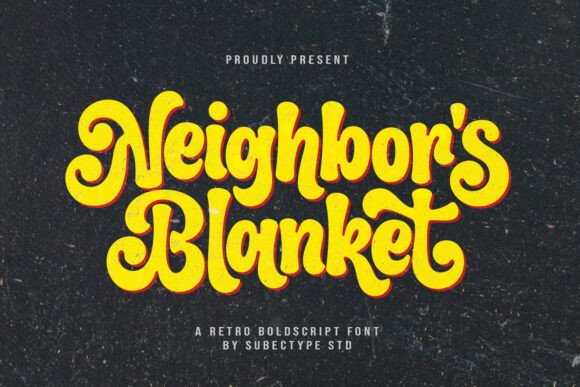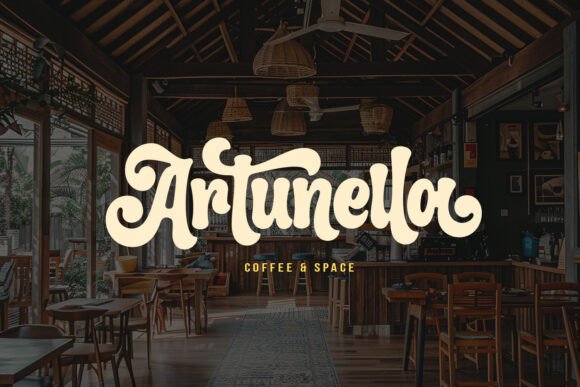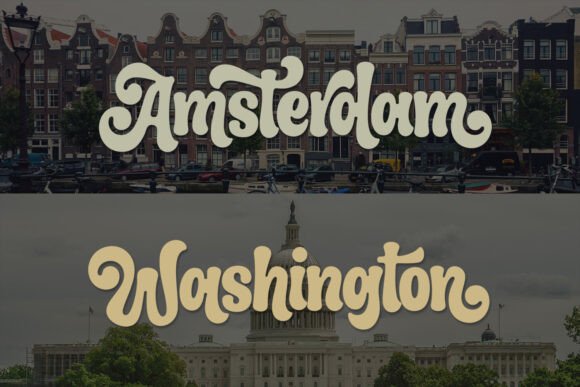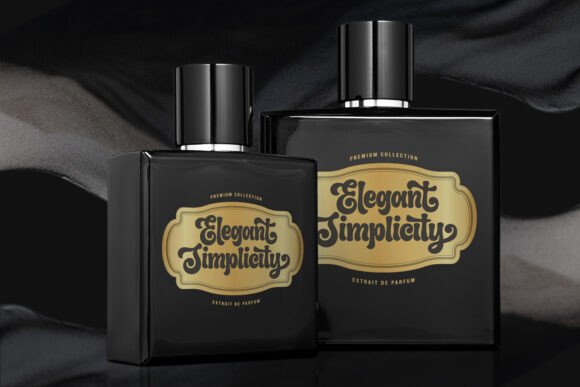
Neighbor’s Blanket Font
About the Neighbor’s Blanket Font
Experience the unique personality of Neighbor’s Blanket Font, a font designed for impact. “Neighbor’s Blanket” is a cozy, modern retro font that captures the warmth of nostalgia while offering a contemporary touch. It features rounded edges and playful curves, making it perfect for designs that aim to evoke comfort and familiarity. Ideal for branding, invitations, and various creative projects, this font combines a friendly aesthetic with legibility, making it a delightful choice for any design needing a touch of warmth and charm.
Its rounded forms and moderate x-height make “Neighbor’s Blanket” particularly well-suited for headlines, short paragraphs, and display text in branding projects focused on a friendly, approachable aesthetic. It works exceptionally well for packaging designs, especially those for food, home goods, or children’s products. However, its playful curves and relatively large letterforms make it less suitable for body text or UI elements requiring high legibility at smaller sizes.
Pair “Neighbor’s Blanket” with a clean sans-serif like Lato or Open Sans for a balanced contrast, or with a classic serif such as Garamond or Playfair Display for a more traditional, yet still inviting feel. A geometric sans-serif like Montserrat can provide a modern counterpoint, while a script font like Great Vibes adds a touch of handwritten charm for specific applications like invitations or logos.
The font’s overall personality is undeniably friendly and nostalgic, conveying warmth and approachability. It’s ideal for brands aiming for a vintage-inspired, yet contemporary image; think small businesses, cafes, or handcrafted goods. Avoid using it for projects requiring a serious or corporate tone.